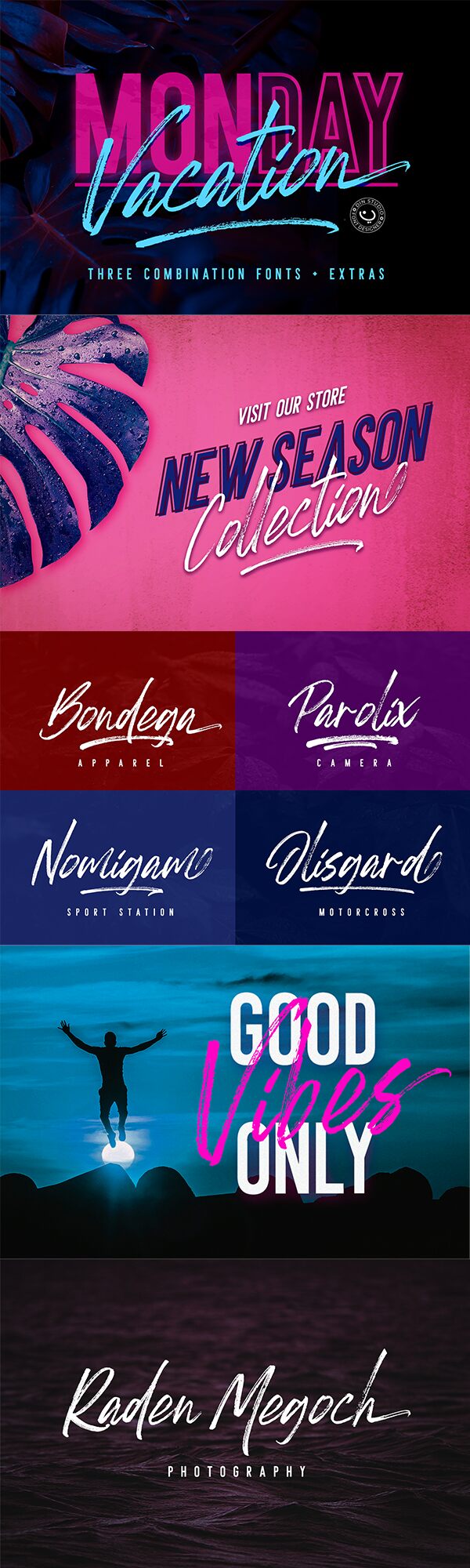
MondayVacation-ItalicScript
Introducing Monday Vacation Font.
Monday Vacation is a brush font and combines with sans font (Solid +outline). Made with naturally brush. The texture from the brush font will make your design more beautiful and powerful. This font is suitable for any design like branding, quotes, t-shirt printing and etc.
Monday Vacation Regular
Monday Vacation Italic
Monday Vacation Sans Solid
Monday Vacation Sans Outline
Monday Vacation Extra